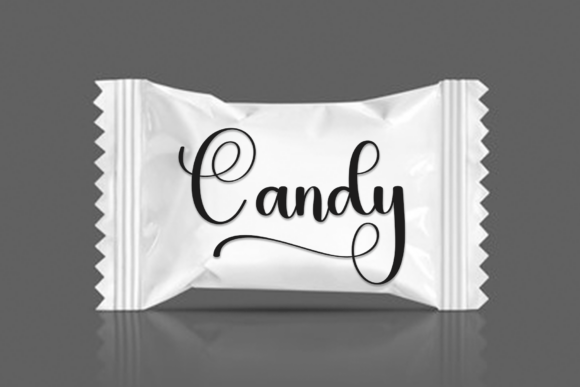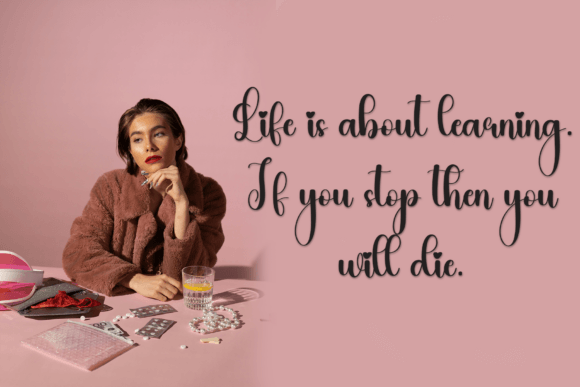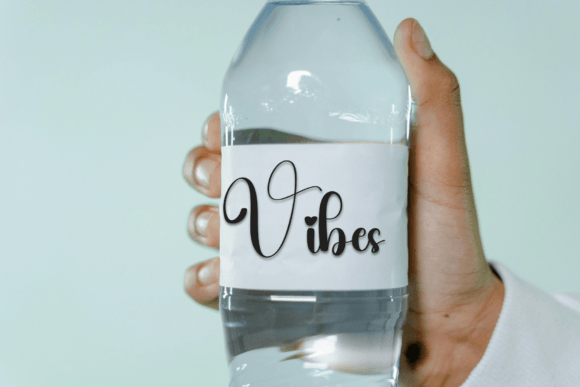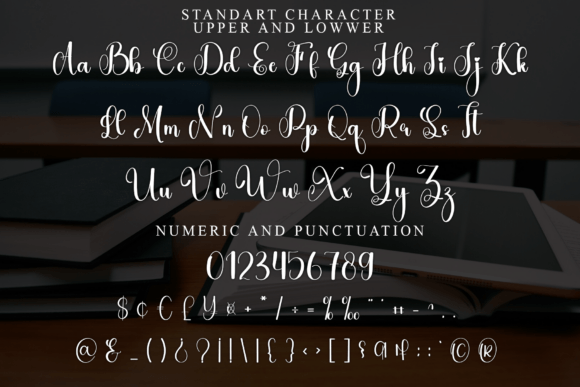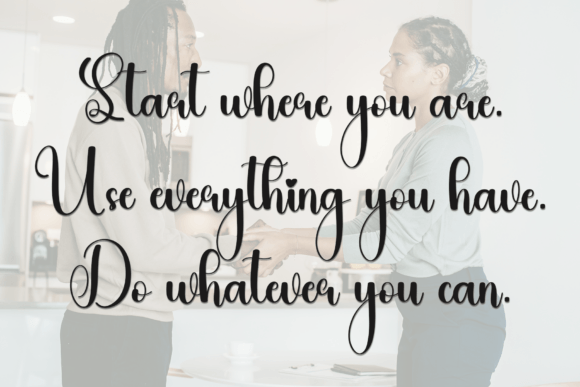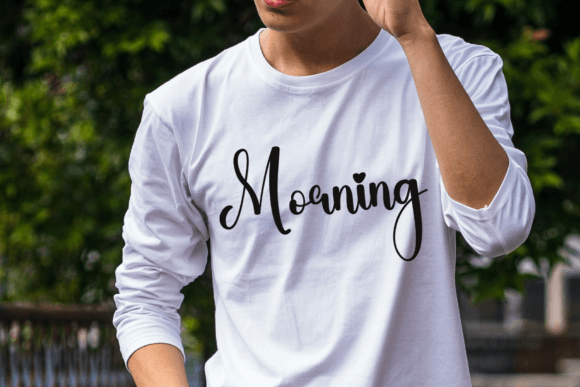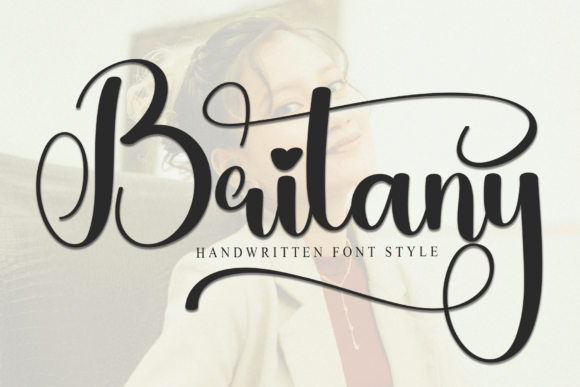
The Elegant Charm of Britany Font: A Designer’s Delight
I still remember the time I was working on a wedding invitation project, and my client asked for a font that exuded elegance and sophistication. I scoured the internet, tried out countless fonts, but nothing seemed to fit the bill. That was until I stumbled upon Britany Font. ✨ Its flowing, cursive letters and smooth curves instantly caught my attention, and I knew I had found the perfect fit. In this article, I’ll share my experience with Britany Font, its features, and how to make the most of it in your designs.
An Honest Review of Britany Font
- ✨ Elegant and sophisticated feel, perfect for formal designs
- ✅ Smooth curves and natural flow make it easy to read
- 💫 Stylish and friendly tone, suitable for a wide range of projects
- 🎨 Highly versatile, works well in various design contexts
While Britany Font is an excellent choice, there are a few things to keep in mind: 🤔
- ⚠️ May not be suitable for very small font sizes, as some details may get lost
- ⚠️ Limited availability of stylistic alternates, which may limit creative options
A Practical Guide to Using Britany Font
The Story Behind Britany Font
Britany Font was designed with the intention of creating a elegant, yet approachable script font. The designer aimed to craft a font that would be perfect for formal designs, such as invitations and greeting cards, while still being friendly and accessible. The result is a font that exudes sophistication without being too formal. 💫
Q: What type of projects is Britany Font best suited for?
A: Britany Font is ideal for formal designs, such as invitations, greeting cards, and certificates. It’s also suitable for branding, packaging, and digital designs where a touch of elegance is desired.
Q: Is Britany Font available in different weights or styles?
A: Currently, Britany Font is available in a single weight. However, the designer may release additional weights or styles in the future.